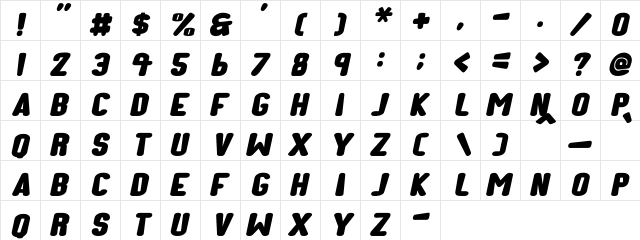
Kids Play Italic Font Preview
Kids Play Italic
Kids Play Italic Font Details
Design Context for Kids Play Typeface
Kids Play has an approachable, lighthearted character — its loose, expressive forms are well-suited to children's content, casual branding, and fun-first design. Its italic angle brings a sense of urgency and motion to the letterforms.
Font Pairing: Pairs well with a rounded or humanist sans for body copy, maintaining the friendly tone without relying on Kids Play to carry extended reading.
Pro Tip: Use Kids Play at larger display sizes where its expressive character can land. Pair with a clean, simple sans for body copy to maintain readability.